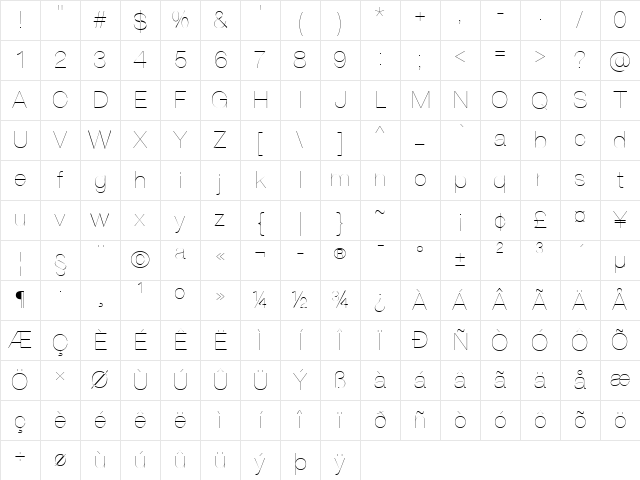
Thin Regular
Foundry: Monotype Imaging Inc.
Designer: Max Miedinger, Charles Nix, Monotype Studio, Jan Hendrik Weber
Thin Family
Thin Regular
Design Context for Thin
Thin is a composed and adaptable typeface that performs quietly and consistently across a wide range of design contexts. Its slender proportions lend an understated elegance to any composition.